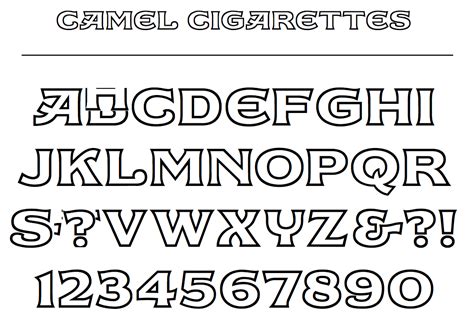
Camel Cigarettes Font. Web sd cammello is a bold unicase typeface inspired by recent camel cigarette branding seen in united states gas.
Web sd cammello is a bold unicase typeface inspired by recent camel cigarette branding seen in united states gas.
Web sd cammello is a bold unicase typeface inspired by recent camel cigarette branding seen in united states gas. Web sd cammello is a bold unicase typeface inspired by recent camel cigarette branding seen in united states gas.